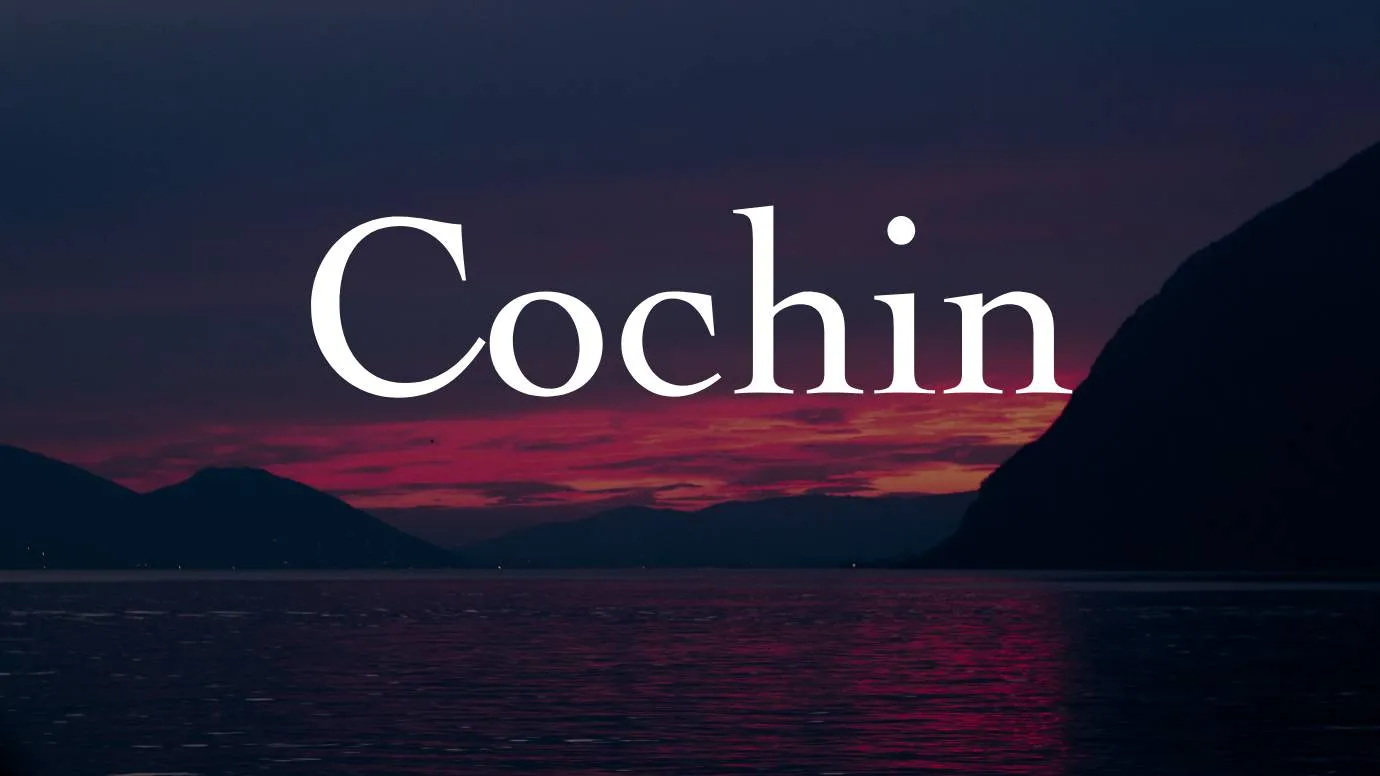
Cochin Font Family is an interesting typeface that belongs to the serif typeface family. It was designed and shared in 1912 by Georges Peignot for a Paris foundry named G. Peignot et Fils.
Along comes this font with 8 styles and 4 weights including italic, bold, roman, and bold italic. This serif typeface was designed based on French Artist Charles-Nicolas Cochin’s copperplate engravings of the eighteenth century.
Cochin Font
NameCochin Font
DesignerGeorges Peignot
FoundryG. Peignot et Fils
StyleSerif
Date Released1912